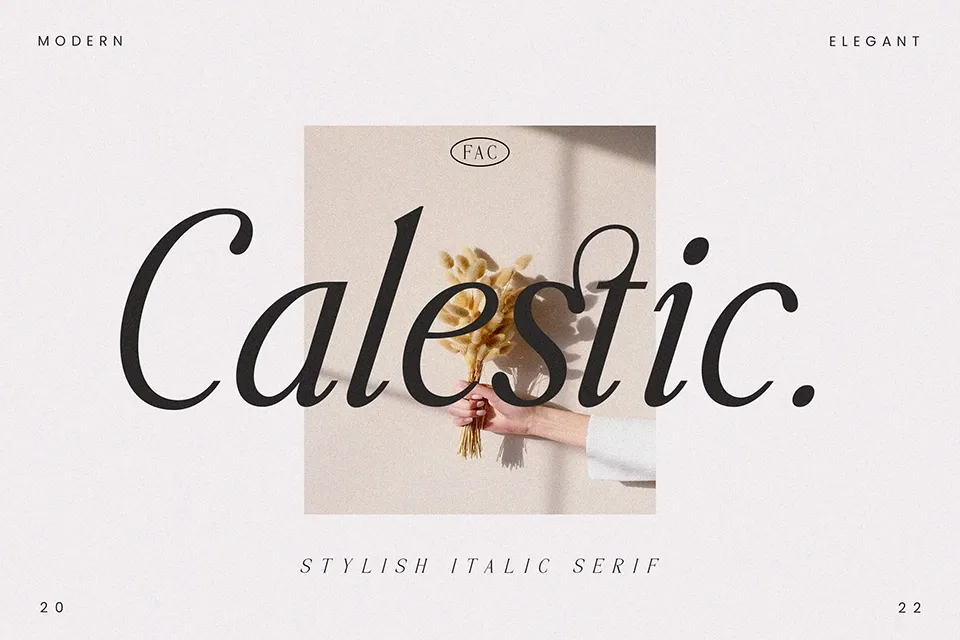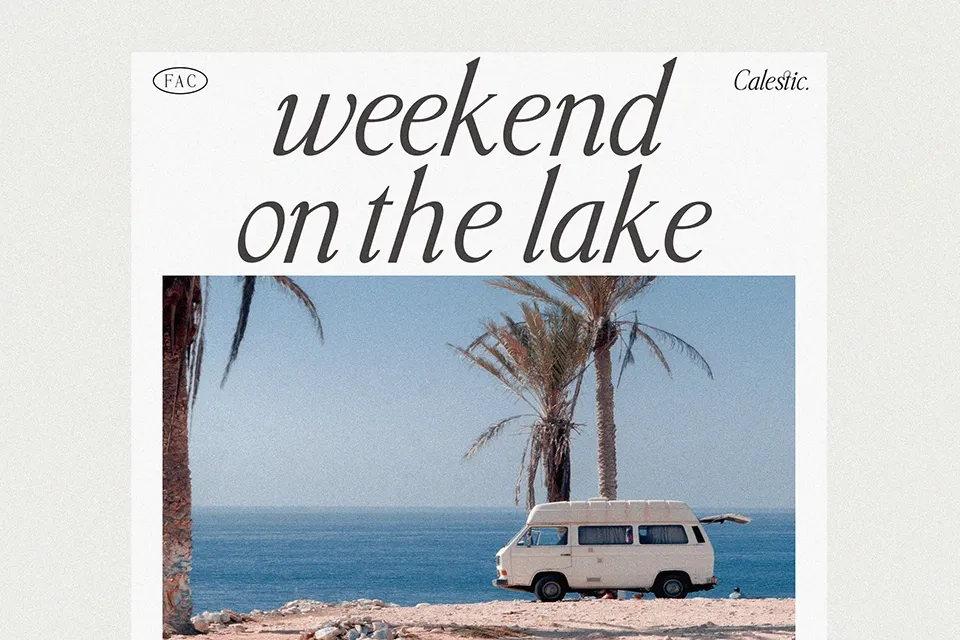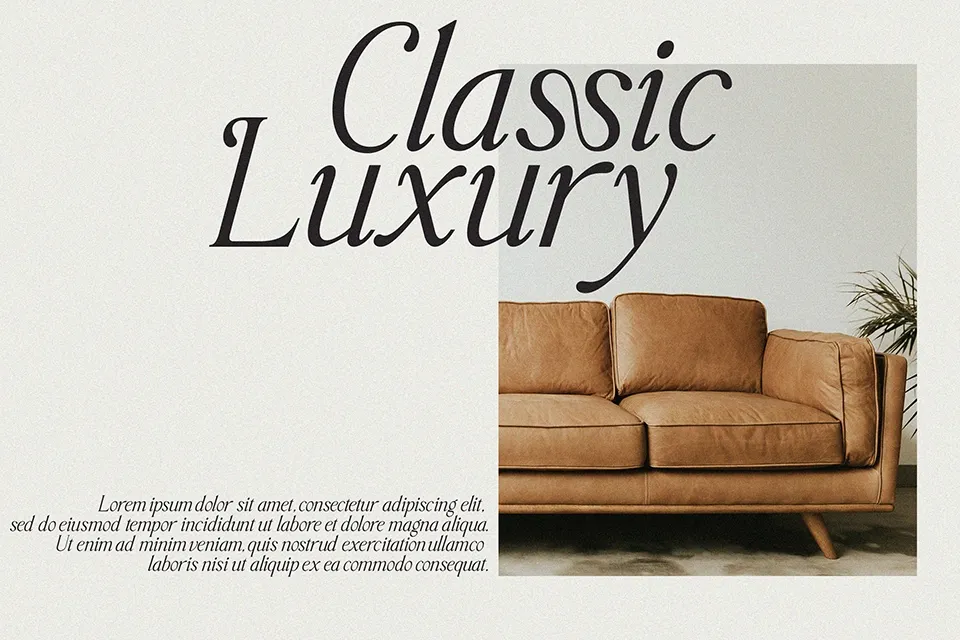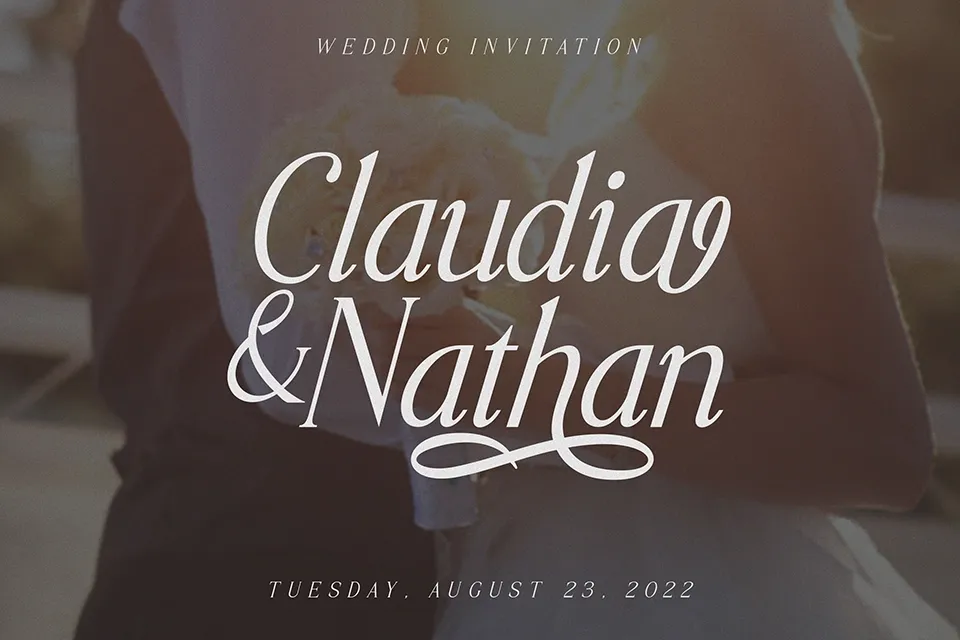
Calestic Font
The Calestic Font is a modern, stylish italic serif typeface that combines the boldness of display fonts with the graceful flow of italics. Its elegant curves and connected letters make it ideal for sophisticated branding, wedding invitations, editorial designs, and other creative projects that require a touch of refinement and charm.